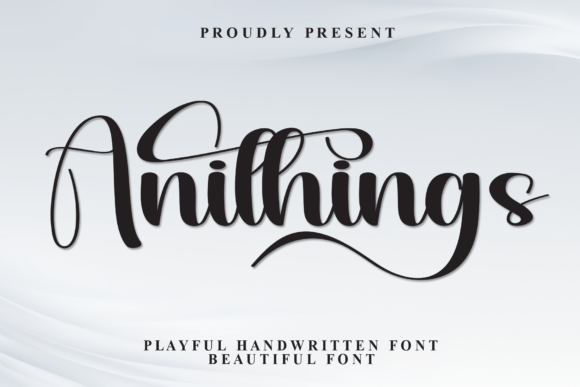
Unlocking Creative Potential with Anithings Font
Have you ever been in the middle of a design project, and suddenly, you’re struck by a creative block? You’re not alone. I recall a particularly frustrating experience while working on a wedding invitation design. My client wanted a unique, hand-crafted feel, but I was struggling to find the perfect font. That’s when I stumbled upon Anithings Font, and it completely transformed my design process.
An Honest Review of Anithings Font
As a designer, I’m always on the lookout for fonts that can elevate my projects. Here’s my take on Anithings Font:
• ✨ Unique and Creative Style: Anithings Font offers a fresh, modern look that’s perfect for making a statement.
• ✅ Versatility: It’s suitable for a wide range of projects, from wall displays and wedding invitations to social media posts and product packaging.
While Anithings Font is an excellent choice, there are a few minor considerations to keep in mind:
• ⚠️ Learning Curve: If you’re new to using OpenType fonts or glyphs, it might take some time to get familiar with the features and how to access them.
• 🤔 Limited Use in Certain Contexts: While the font is versatile, there might be specific contexts where a more traditional or formal font is required.
The Story Behind Anithings Font
While the exact origins of Anithings Font might not be well-documented, it’s clear that the creators were inspired by the need for unique, creative typography in the design world. They aimed to craft a font that would not only stand out but also offer designers a wide range of possibilities for customization and creativity.
Is Anithings Font suitable for body text? While Anithings Font is stunning for headings and titles, it might not be the best choice for body text due to its unique, creative style.
Anithings Font is a remarkable addition to any designer’s toolkit, offering a unique blend of creativity, versatility, and ease of use. Whether you’re working on a personal project or a client’s commission, this font is sure to inspire and elevate your designs.